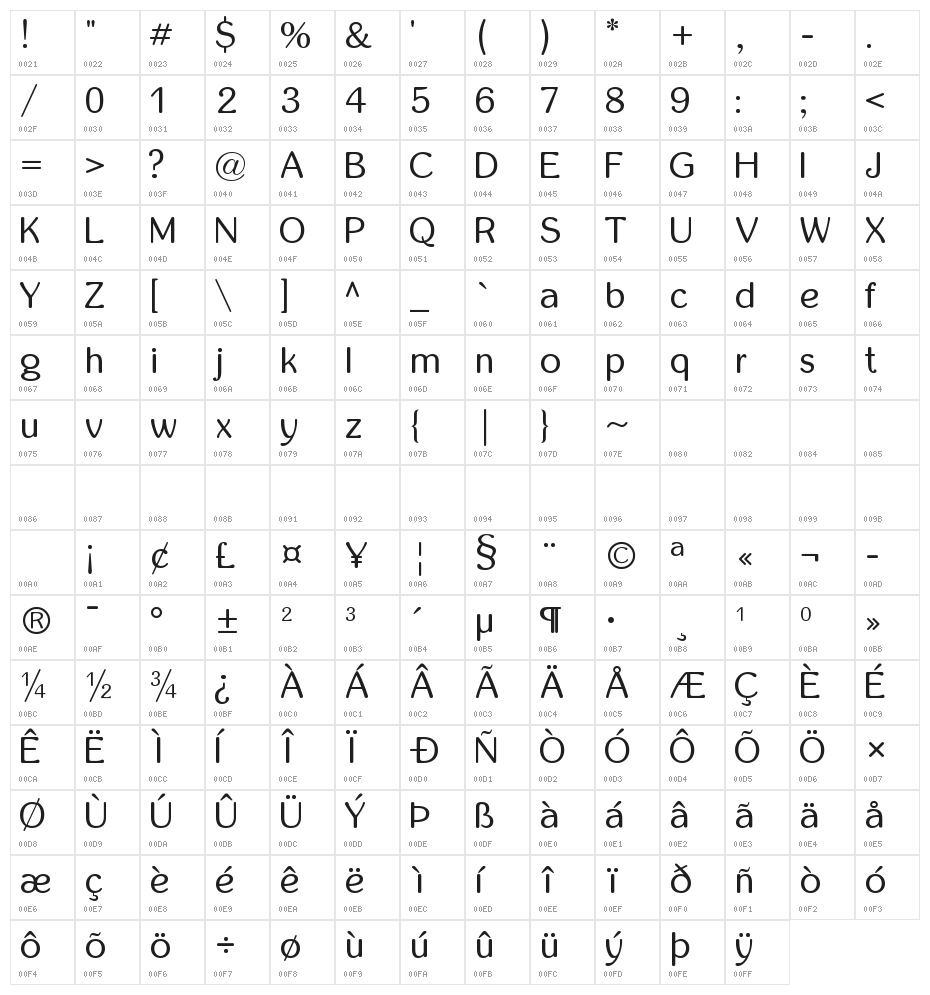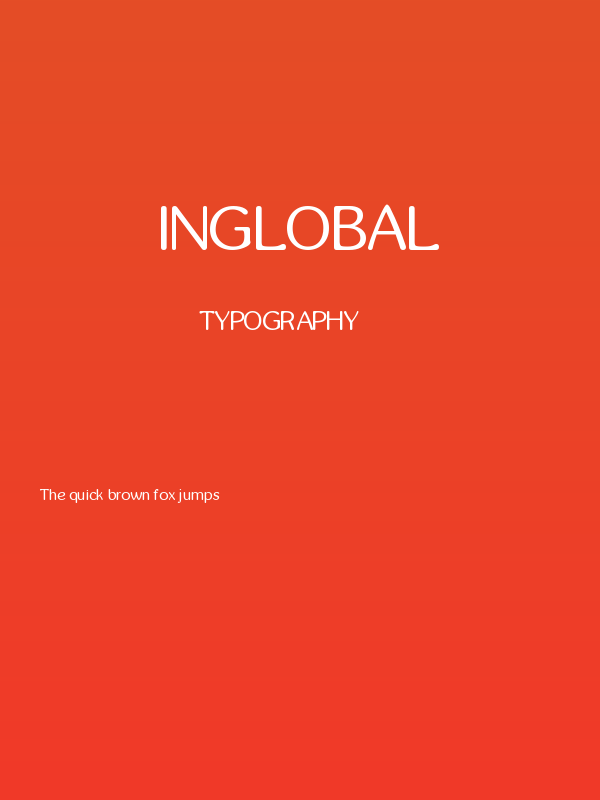
inglobal Font
✎ Sans Serif
| Anwendungsfall | Headlines, Body text, Logos |
| Vorgeschlagene Projekte | Ideal for digital interfaces, branding, advertising, and editorial design due to its clean and modern appearance. |